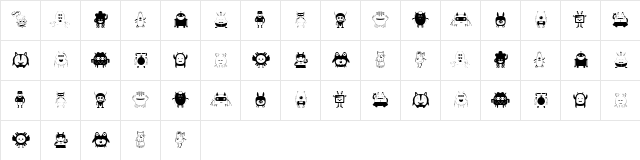
Funny Toys Regular
Design Context for Funny Toys Typeface
Funny Toys has an approachable, lighthearted character — its loose, expressive forms are well-suited to children's content, casual branding, and fun-first design.
Font Pairing: Pairs well with a rounded or humanist sans for body copy, maintaining the friendly tone without relying on Funny Toys to carry extended reading.
Pro Tip: Avoid using Funny Toys for long passages of text — it works best for headlines, labels, and short calls to action.